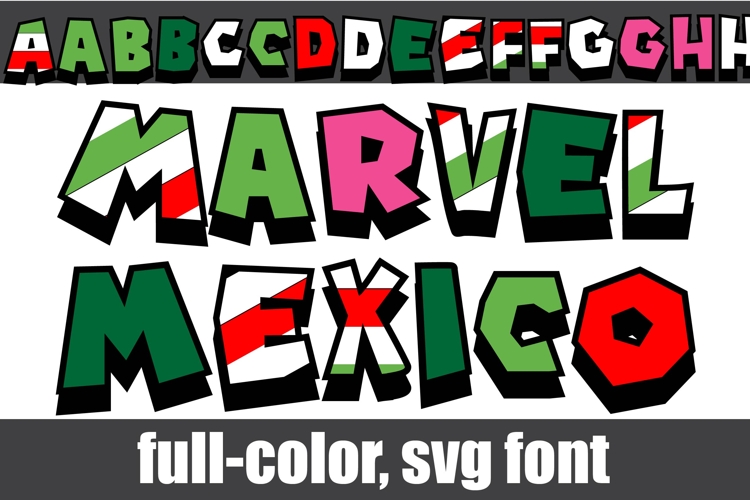
Marvel Mexico Color Font
This full-color, font is a blocky sans serif with the colors of Mexico. There is an alt case of additional colors of each letter that you can access through your system's character map.